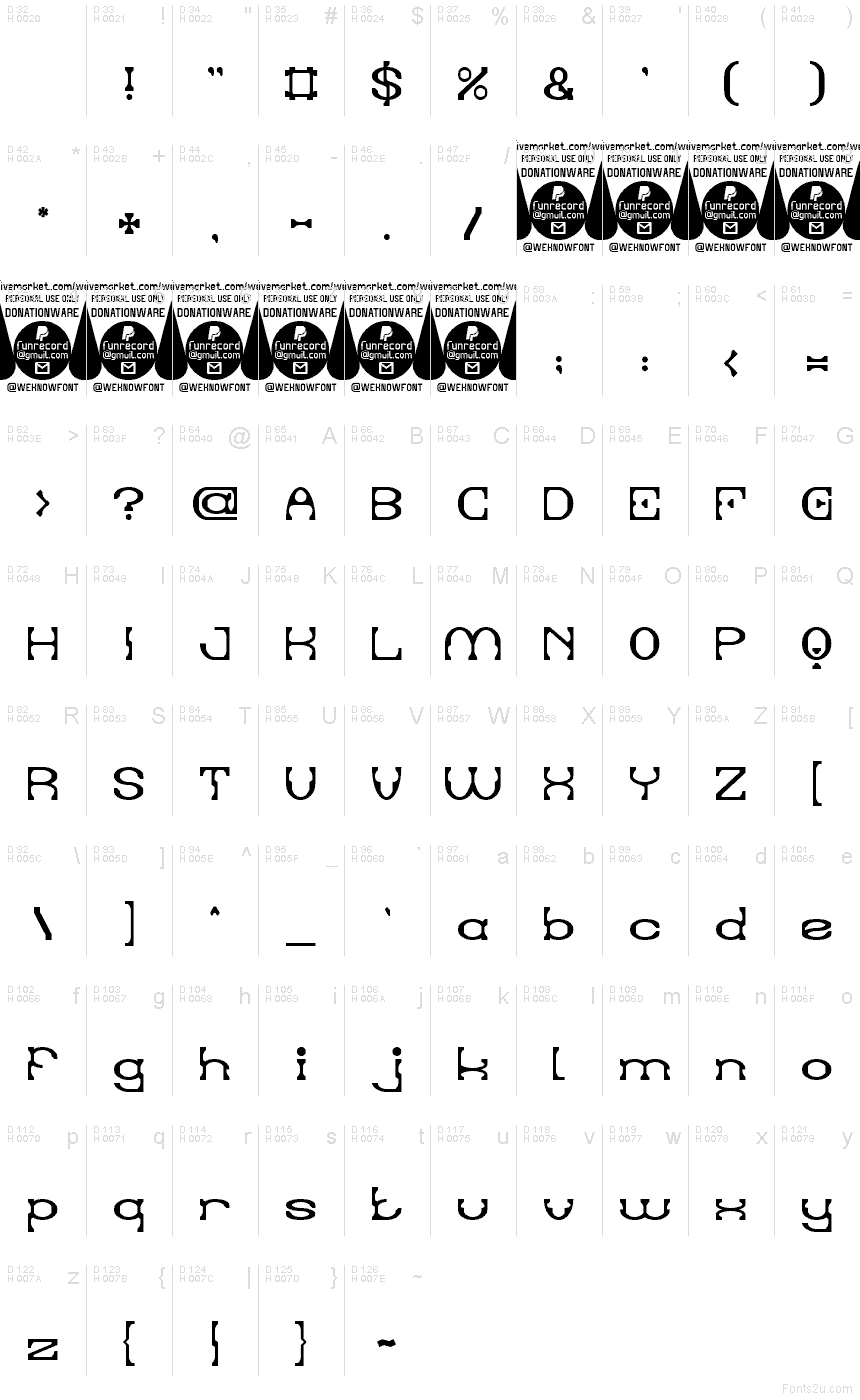
DEFAULT SYSTEM
Default System font is a retro futuristic display font designed by weknow. It’s expanded and has an artistic flair thanks to its whimsical style and nostalgic vibe with unique character shapes. The design stands out every time, making it suitable for various branding projects both digital and printed.
Make use of Default System in logos, posters, banners, book covers, advertising campaigns, headlines, titles, or as secondary text in editorial designs. Use whichever of these use cases you might need without any doubts about results’ quality.